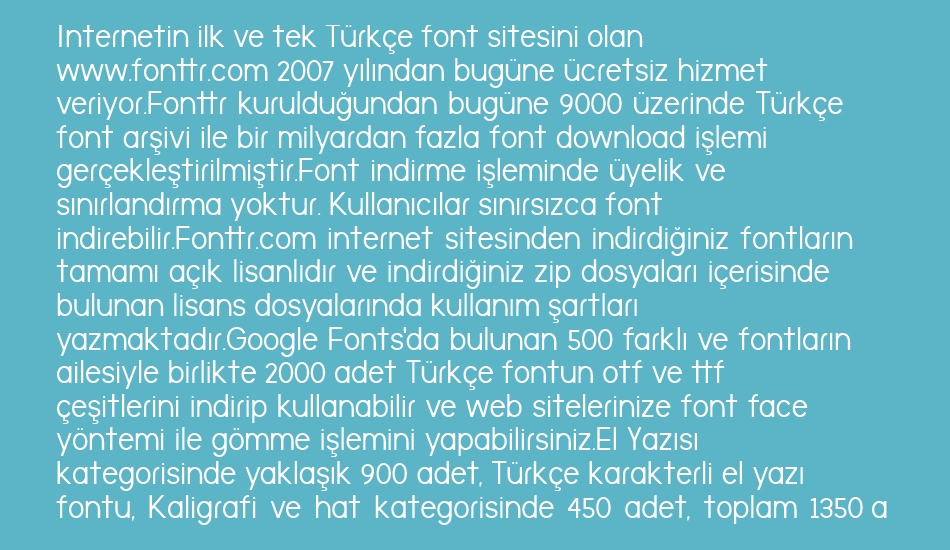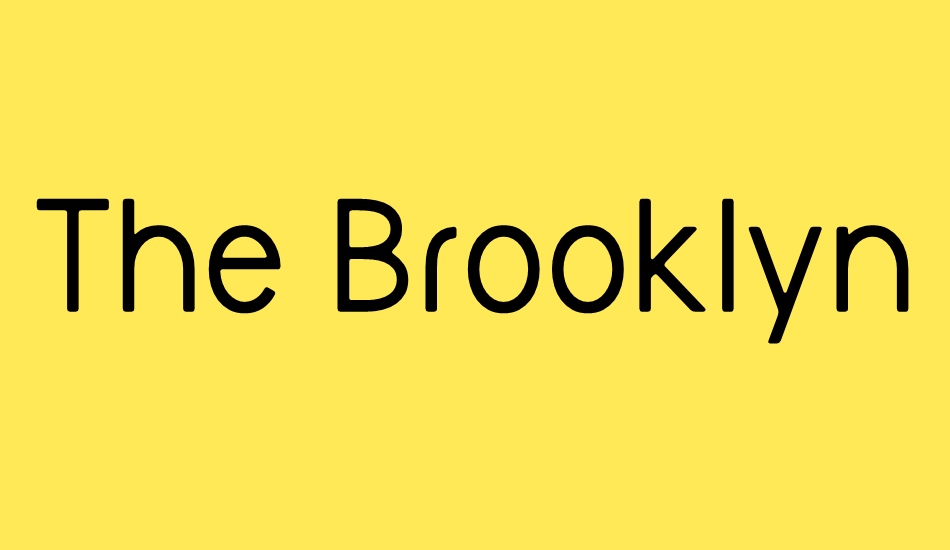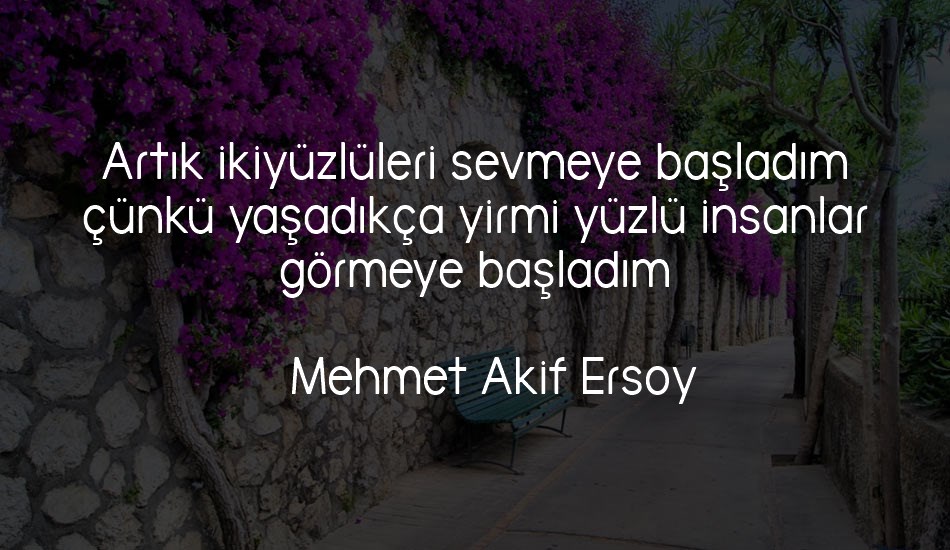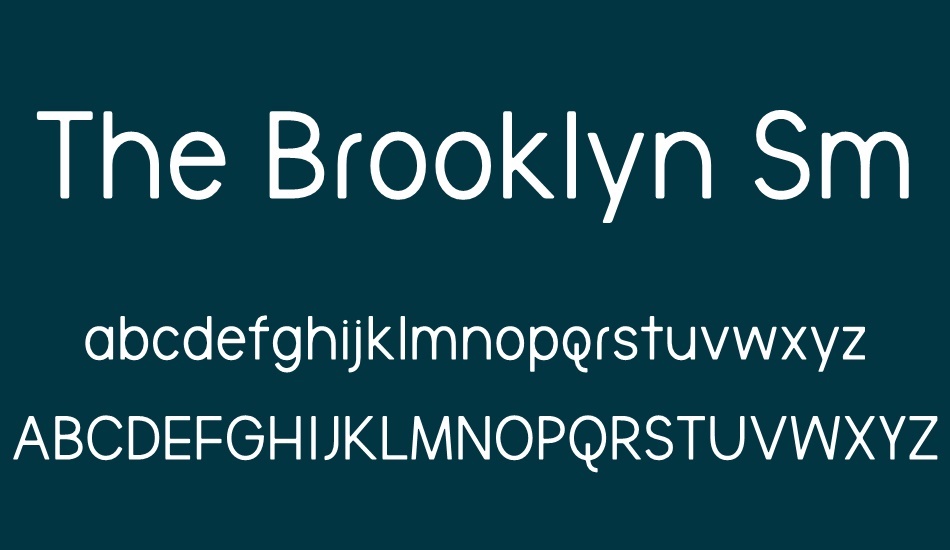
The Brooklyn Smooth font
The Brooklyn Smooth
The Brooklyn Smooth pairs great with script fonts, and works well for bylines and text. The fonts have over 400 characters each, including Cyrillic and lots of accented Latin.
The Brooklyn Smooth Bold font